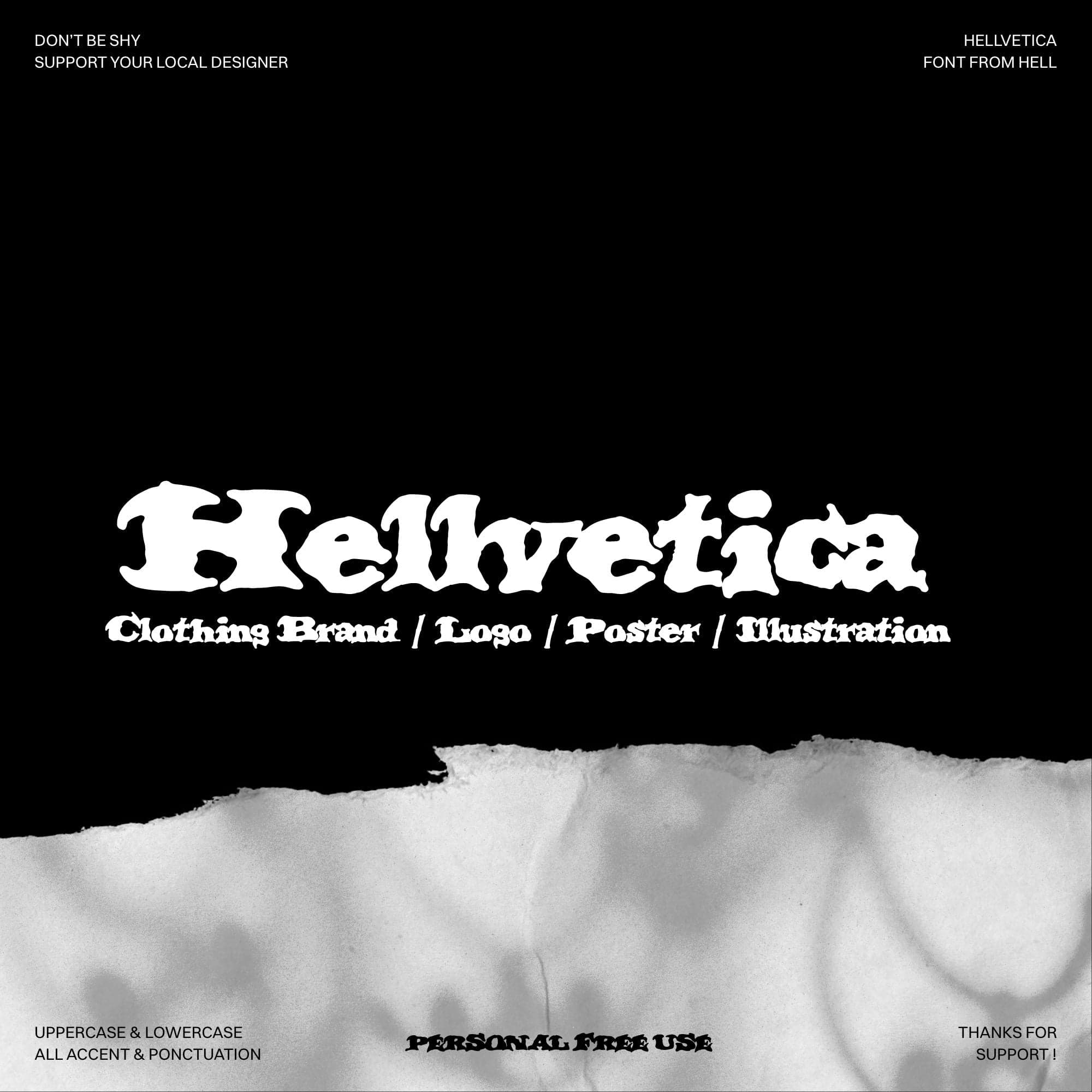
<p>Go to hell with the spiky Hellvetica. Whether you’re conjuring up album art, concert posters, or crafting a wicked logo, Hellvetica delivers with its bold, jagged lines and unholy curves.<br>This font is designed for bold headlines & logo designs. Use it to bring a fun and playful touch to your designs.<br>The font will now be accessible in most software, including Adobe Illustrator, Photoshop, Microsoft Word, and other text-editing programs.</p>